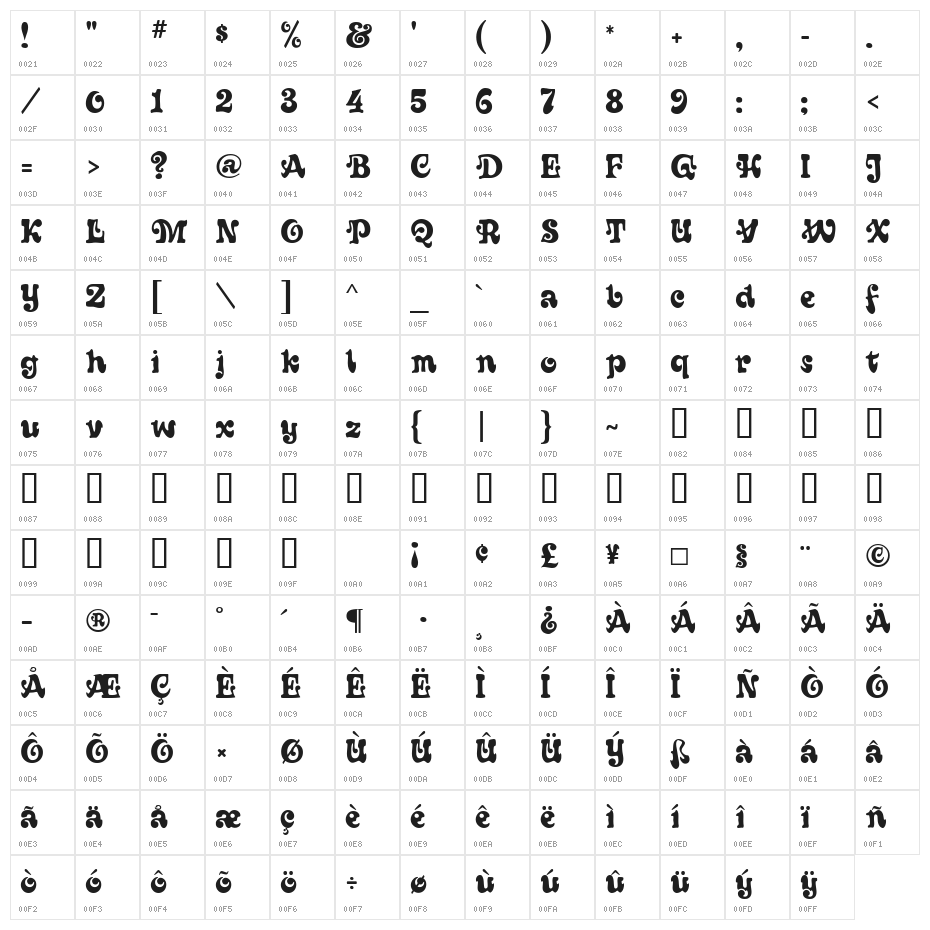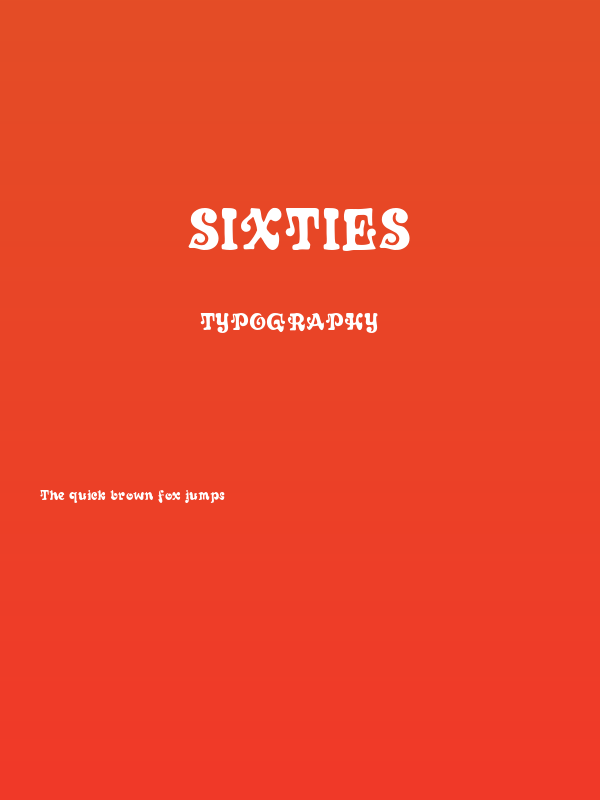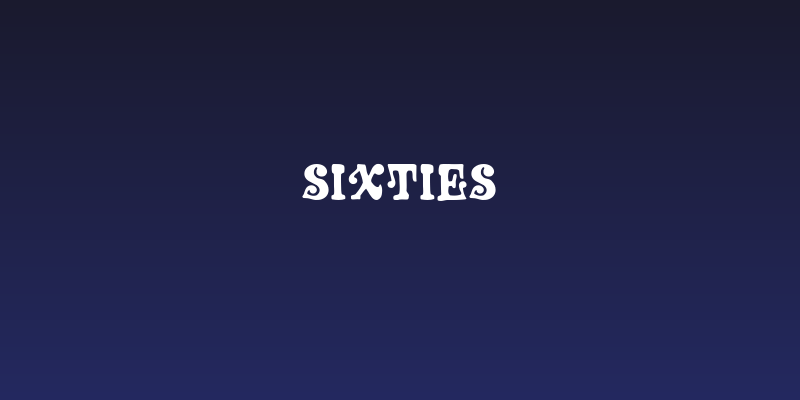
Sixties Font
Sixties Description
This font embodies a playful and retro aesthetic, reminiscent of the 1960s. Its bold, curvy letters feature unique, whimsical flourishes that add a sense of movement and personality. The uppercase and lowercase characters maintain a consistent style, with rounded edges and a slightly exaggerated weight that gives them a substantial presence. Numbers and special characters are equally stylized, ensuring a cohesive look across all text elements. The font's design is both eye-catching and nostalgic, making it ideal for projects that aim to capture a vintage or groovy vibe.
| Proposed Projects | Ideal for retro-themed posters, album covers, branding for vintage shops, and playful event invitations. |